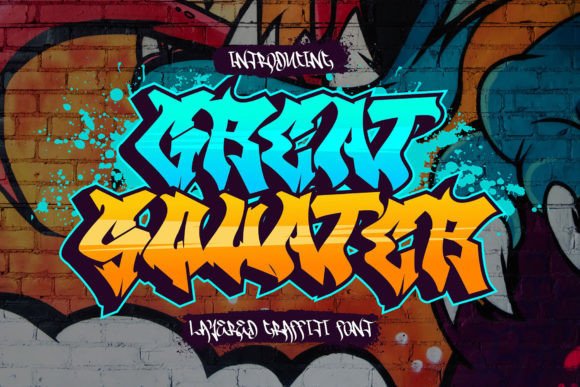
Introducing "Great Squater" - The Graffiti Font That's Ready to Unleash Your Creativity
Step into the world of street art and make your designs come alive with "Great Squater," the graffiti font that's sure to turn heads. Inspired by the vibrant energy of urban culture, this font is your ticket to creating stunning visuals that ooze authenticity and edge.
With its unique two-layer design, "Great Squater" gives you the power to craft captivating text that leaps off the page. The solid layer provides a bold foundation, while the shadow layer adds depth and dimension, creating a captivating 3D effect that's impossible to ignore.
Unleash Your Creative Vision with "Great Squater"
Whether you're designing posters, street art, or any other project where you want to make a statement, "Great Squater" is your ultimate weapon. Its versatility knows no bounds, allowing you to effortlessly create logos, branding materials, social media graphics, and more.
Stand Out from the Crowd
In a world of ordinary fonts, "Great Squater" is your chance to break free from the norm and showcase your individuality. Its unique graffiti style is sure to grab attention and leave a lasting impression on your audience.
Easy to Use and Customize
Don't let technicalities hold you back from unleashing your creativity. "Great Squater" is incredibly user-friendly, making it a breeze to integrate into your design projects. Whether you're a seasoned pro or just starting, you'll find it easy to achieve stunning results.
Create Designs that Speak Volumes
With "Great Squater," your designs will speak louder than words. Its bold, dynamic style commands attention, making it perfect for conveying messages that resonate with your audience.
Elevate Your Designs to New Heights
"Great Squater" is more than just a font; it's a gateway to a world of creative possibilities. With this font by your side, you'll unlock new levels of design excellence, leaving your audience in awe.